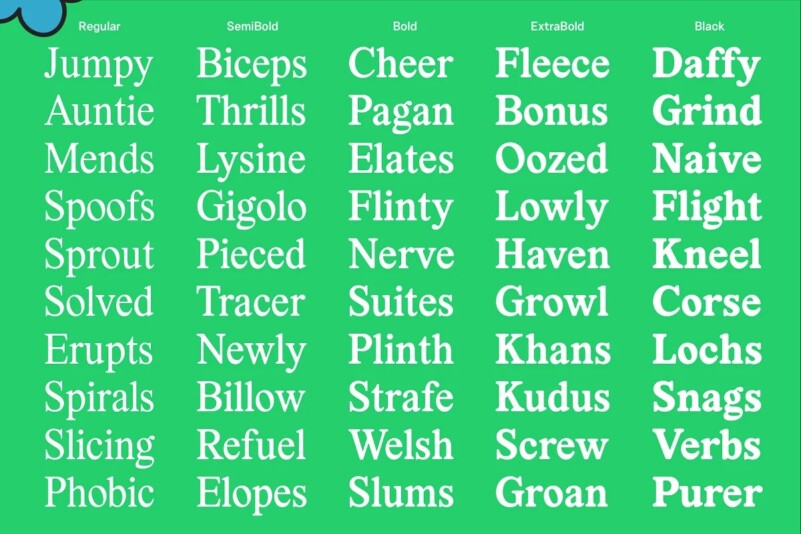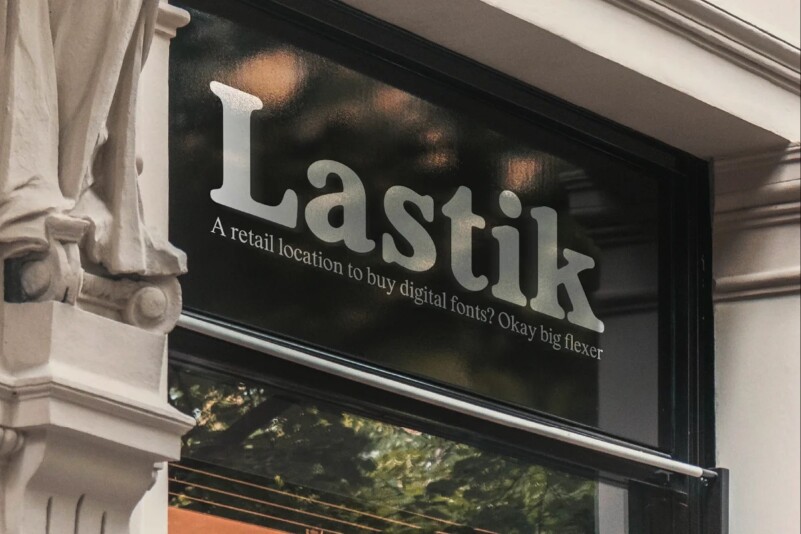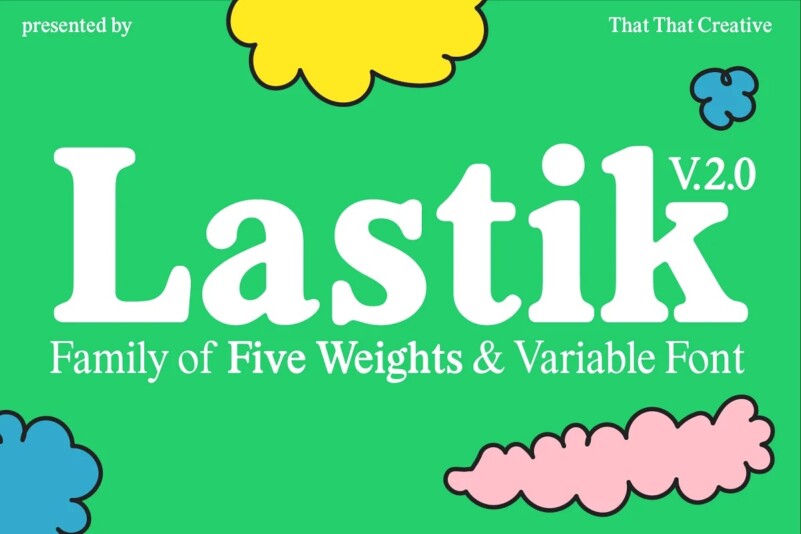
Lastik Retro Variable Font Family
Lastik is a real work horse of a font. It includes 5 styles that cover all you need from Display Fonts to body copy fonts. This font comes from the idea of an approachable, friendly fun serif font. The font takes inspiration from old scholastic materials form the late 90s and early 2000’s.
This font is loaded with features from small caps, to alternate style sets for numbers, case sensitive punctuations, and contextual alternatives. as well as support for over 120 Languages, and finally it’s variable, so you can dial in the exact weight you need.